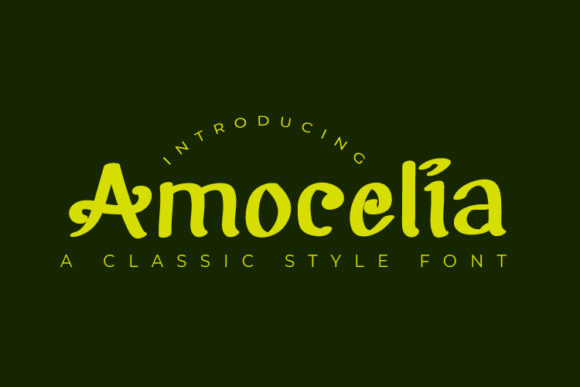
Introducing Amocelia: A Script Font Family That Unleashes Limitless Creativity
Step into the world of Amocelia, where elegance and artistry intertwine to create a captivating script font family like no other. Crafted with meticulous care by the skilled hands of Letterayu, Amocelia is a symphony of flowing lines and graceful curves that will elevate your creative projects to new heights.
Unleash Your Inner Artist:
Amocelia is not merely a font; it's an invitation to unlock your inner artist and explore the boundless possibilities of creativity. With its enchanting script style, Amocelia effortlessly adds a touch of sophistication and charm to any design, whether it's a heartfelt letter, an eye-catching poster, or a visually captivating social media post. Let your imagination soar as you immerse yourself in the world of Amocelia and watch your creative vision come to life.
Perfect for Vinyl Lettering:
Amocelia's distinct script style makes it an ideal choice for vinyl lettering projects. Its clean, well-defined lines ensure precise and effortless cutting, while its elegant aesthetic adds a touch of charm and personality to any surface. From personalized home décor to eye-catching business signage, Amocelia transforms ordinary objects into masterpieces, leaving an unforgettable impression on all who behold them.
Multilingual Support for Global Creativity:
Amocelia embraces the beauty of diversity with its comprehensive multilingual character support. Whether your creative vision takes you across continents or languages, Amocelia effortlessly adapts to communicate your message to a global audience. Create stunning designs that resonate with people from all walks of life, breaking down barriers and connecting hearts through the universal language of art.
Endless Creative Applications:
Amocelia's versatility knows no bounds, making it the perfect companion for a multitude of creative endeavors. Its enchanting script style adds a touch of elegance to logos, posters, and flyers, while its playful charm enlivens invitations, greeting cards, and social media posts. Amocelia seamlessly integrates into a wide range of design aesthetics, from whimsical and lighthearted to classic and refined, elevating your projects with its timeless beauty.